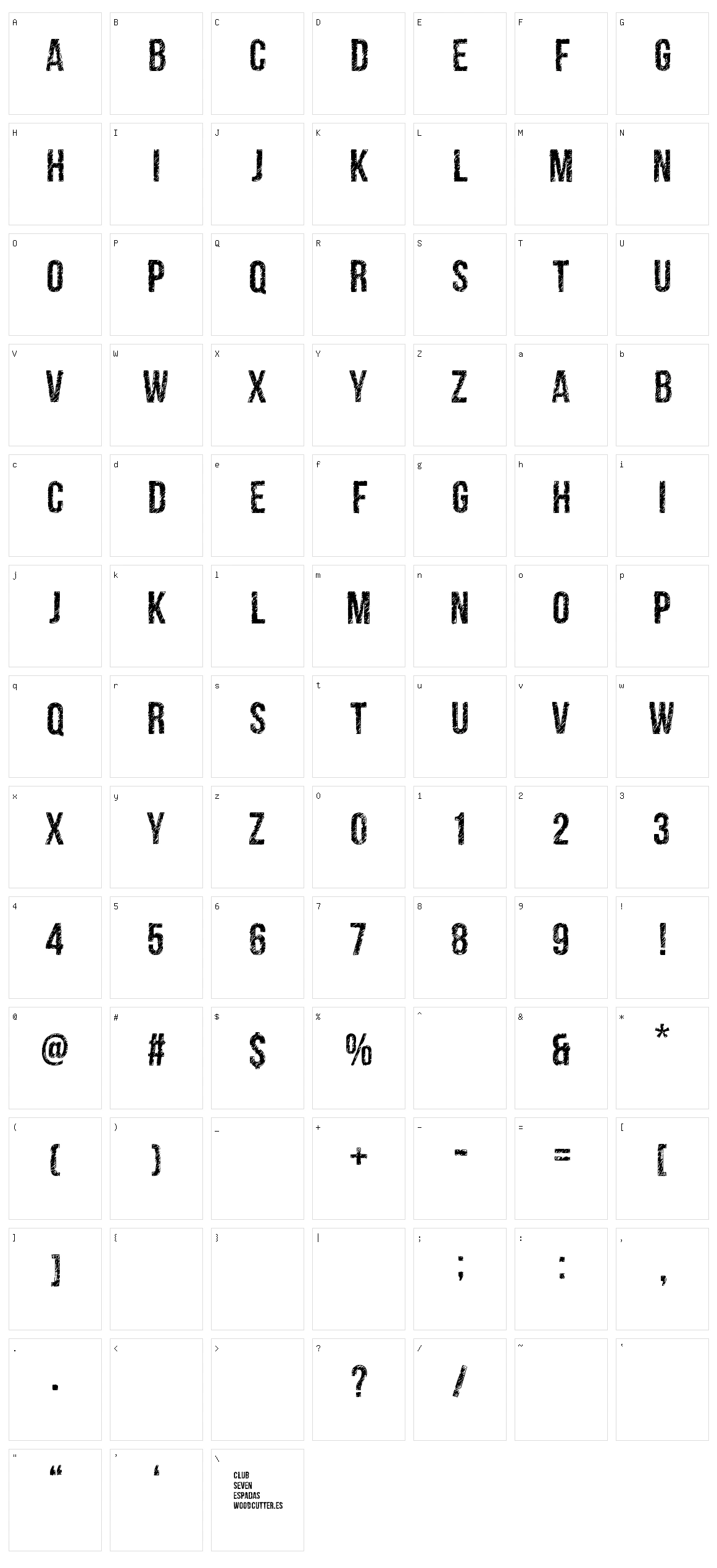
The free font Club Seven Espadas is carefully designed by Woodcutter, showcasing a thoughtful balance of creativity and usability and falls under the Eroded font style. When you download the ZIP file, it contains only 90.19 KB of font files, making it lightweight and quick to download. Please review the license details below to understand permitted usage and distribution rights. If license information is not available, we recommend using this font for personal projects only or contacting the author directly for commercial usage permissions.